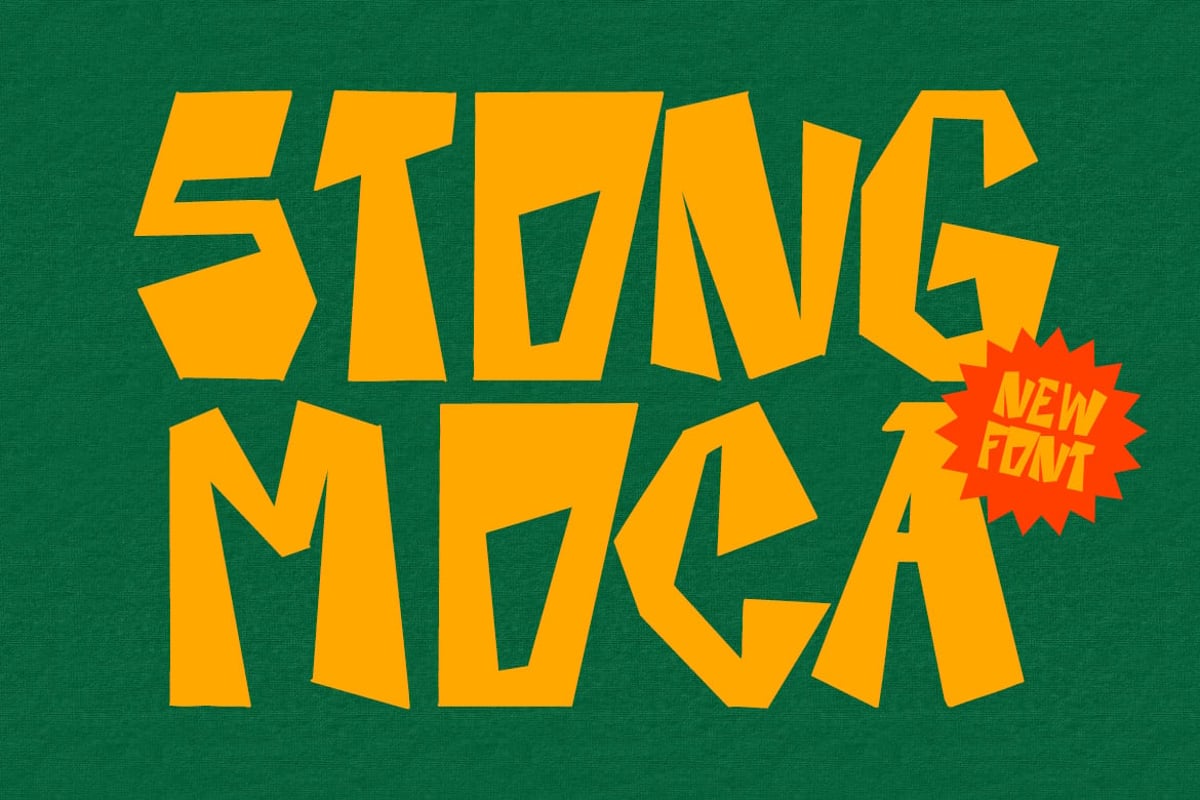
Stong Moca - Food Font
Make a bold statement with this heavy, hand-cut inspired font featuring jagged edges and raw character.
This typeface showcases thick, solid strokes with irregular letterforms that create a primitive, expressive aesthetic. Each character brings unique, non-uniform shapes that deliver high visual impact and playful energy to your designs.
Perfect for bold headlines, eye-catching posters, and creative branding projects that need a raw, authentic touch.
Ideal Applications:
- Bakery and café branding
- Food and beverage logos
- Restaurant menus and signage
- Coffee shop and donut shop designs
- Food packaging and labels
- Social media food promotions
- Kitchen-themed posters and prints
- Culinary blogs and recipe graphics